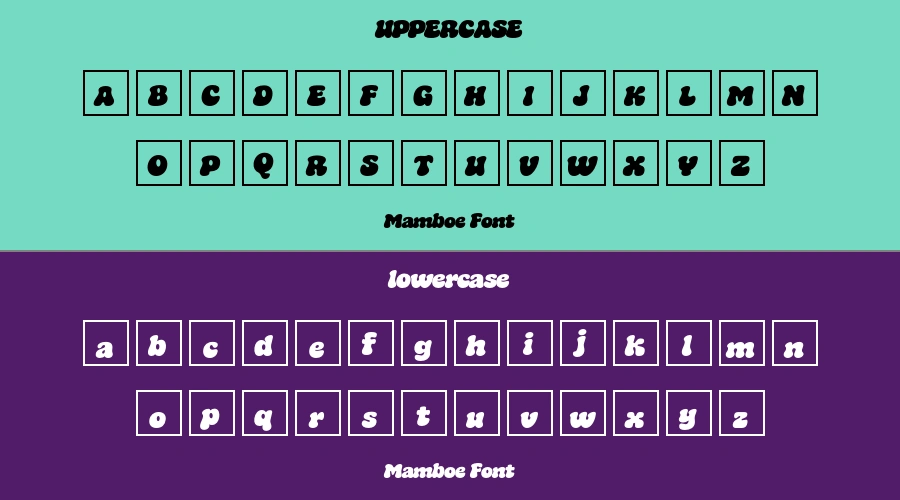
About Mamboe Font
Mamboe Font stands out for its distinctive combination of graceful transitions and technical precision. Ideal for advertising campaigns, it provides the versatility and market appeal that professional projects demand. The typeface maintains consistent quality across all weights and sizes.
Key features include refined decorative alternates and practical kerning pairs, enhancing typographic expression. In section headers applications, Mamboe Font demonstrates exceptional overlay performance. The descender depth and aspirational quality contribute to its distinctive character and professional appeal.
Mamboe Font |